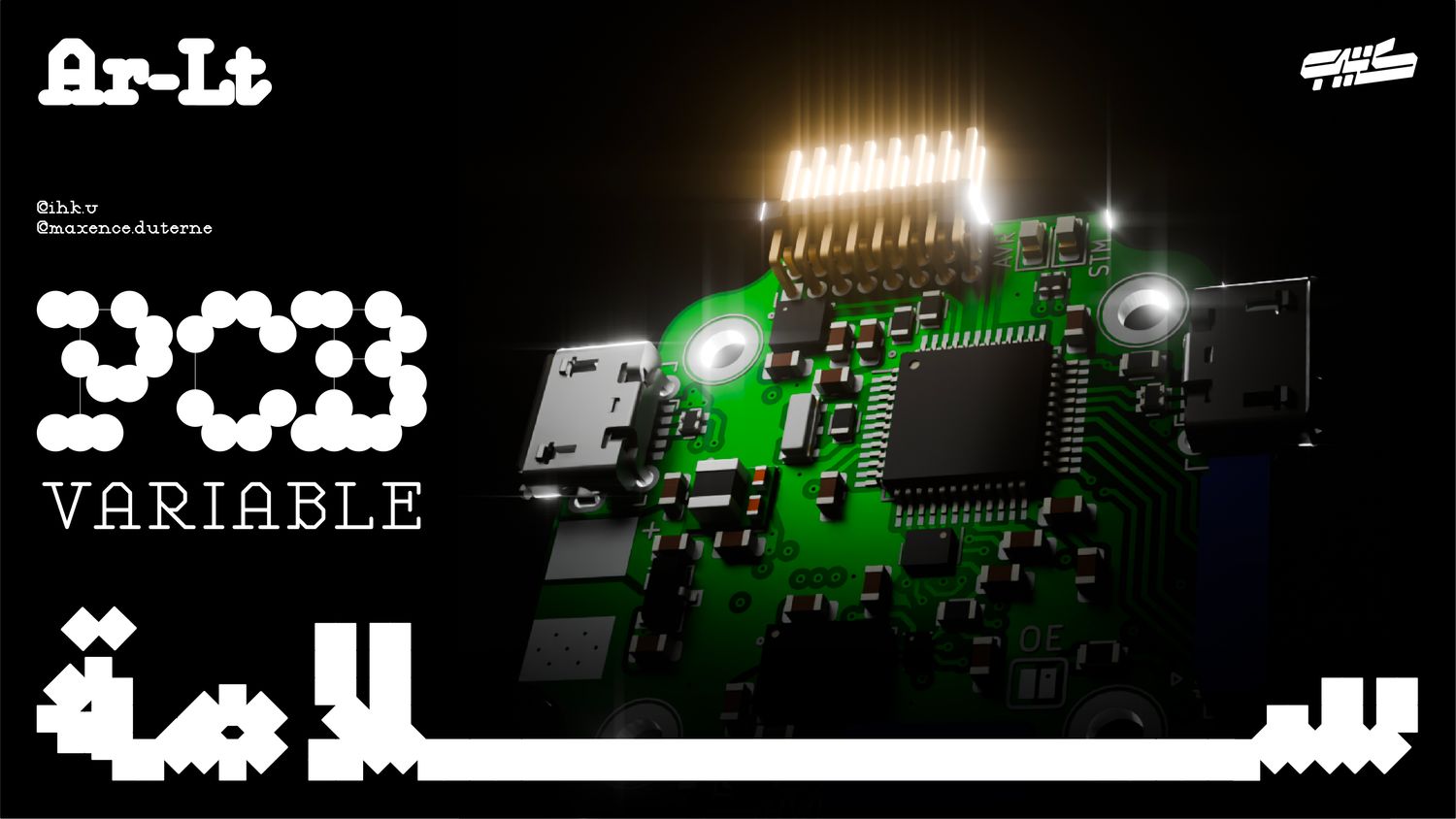
PCB Salama is a dynamic two-axis variable typeface with full Arabic and Latin support, inspired by the visual language of printed circuit boards and their structured network of tracks, connections, and conductive paths.
The concept traces back to the early development of PCB technology, where electrical connections were transformed from loose wires into fixed, organized paths across a board. PCB Salama translates this logic into typography, turning letterforms into a flexible system of lines, structures, and connections while maintaining clarity and functionality across both scripts.